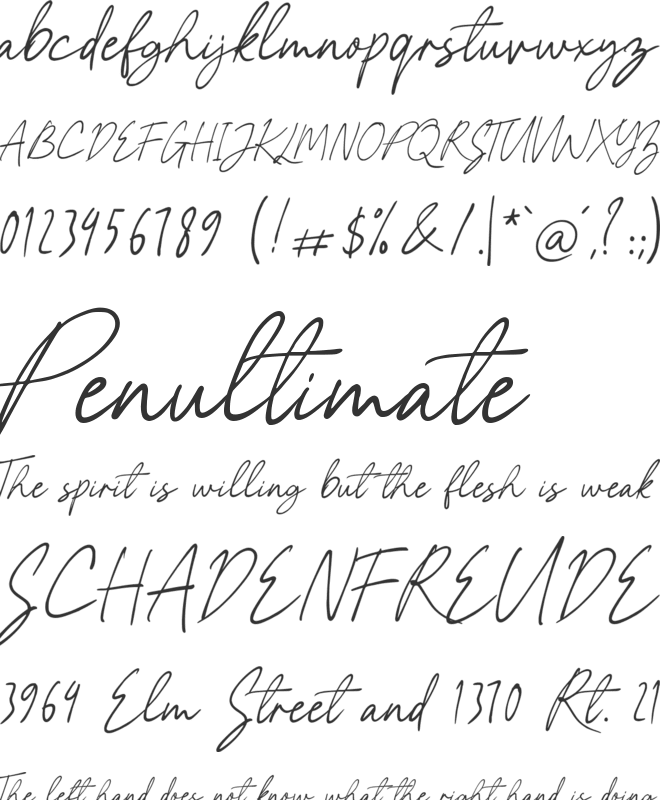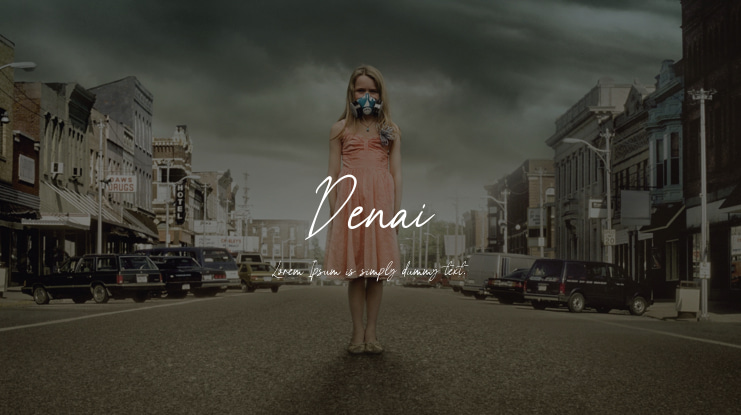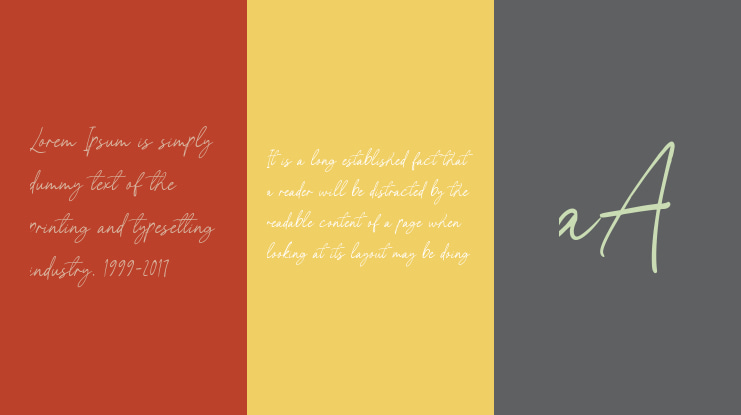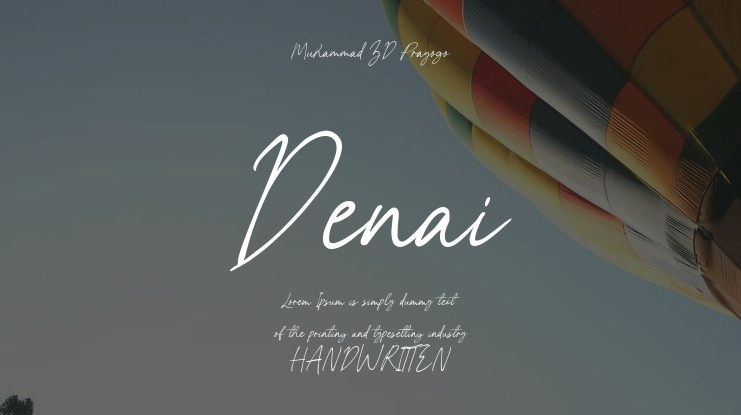
Denai Font
Introducing Denai Handwritten Script Font
Experience the elegance and charm of Denai, a beautifully crafted handwritten script font that adds a personal touch to any project. Whether you’re designing wedding invitations, crafting heartfelt notes, or creating eye-catching social media graphics, Denai delivers a stunning and sophisticated look.